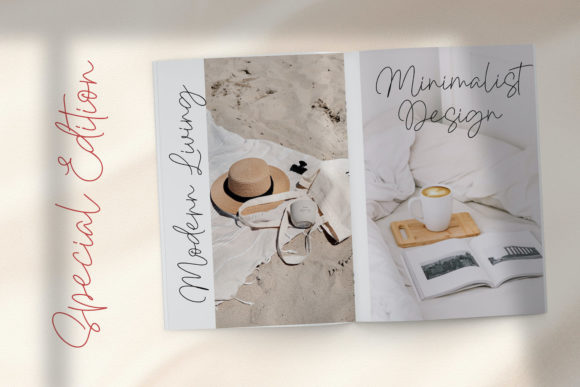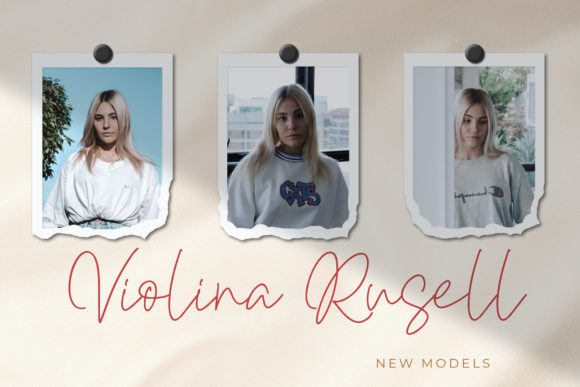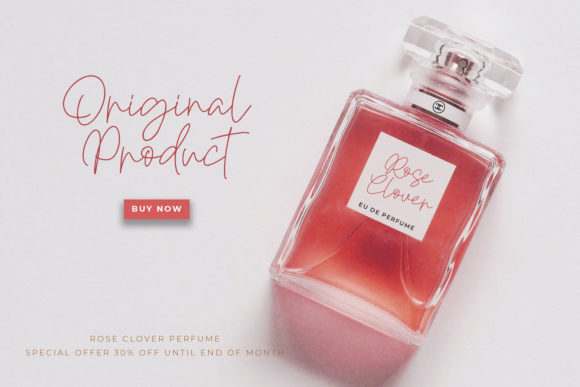
Introduction to Lentera Hati Font
As a designer, have you ever stared at a blank canvas, waiting for that perfect spark to ignite your creative project? For me, it’s those quiet moments when the world slows down, and I can focus on the smallest details that make a big impact. It’s in these moments that I crave a design resource that can elevate my ideas and bring them to life. That’s where the Lentera Hati Font comes in – a beautiful, delicate script font that adds a touch of magic to any design.
With its light, dancing characters, the Lentera Hati Font is perfect for designers who want to add a sense of whimsy and elegance to their work. Whether you’re working on a branding project, a wedding invitation, or a digital design, this font is sure to make your design stand out. Plus, with a transparent background, you can easily layer it over any image or background, giving you endless possibilities for creative expression.
Key Features of Lentera Hati Font
- Unique, Hand-Drawn Design: Lentera Hati Font features a distinctive, hand-drawn design that adds a personal touch to any creative project.
- High-Quality Typography: This font is designed with high-quality typography in mind, ensuring that your text stands out with clarity and precision.
- Transparent Background: Lentera Hati Font offers a transparent background, making it perfect for designers who want to create visually appealing designs without the distraction of a solid background.
- Perfect for Creative Projects: Lentera Hati Font is ideal for use in creative projects, including logos, branding materials, and packaging design.
Honest Review: Lentera Hati Font
As a designer, I’m always on the lookout for high-quality design resources that can elevate my creative projects. The Lentera Hati Font is one such find, and I’m excited to share my honest review with you.
One of the standout features of this font is its versatility. It’s perfect for a wide range of creative projects, from branding to editorial design. The font’s elegant script style makes it ideal for adding a touch of sophistication to your designs.
- ✨ High-quality design with a beautiful, elegant script style
- ✨ Perfect for creating a professional and sophisticated look
- ⚠️ Limited character set, which may not be suitable for extensive text-based designs
- ⚠️ May not be suitable for designs that require a transparent background
Lentera Hati Font is ideal for various creative projects such as wedding invitations, social media graphics, and product packaging. Its high-quality design and transparent background make it perfect for designers who want to create a professional and modern look.